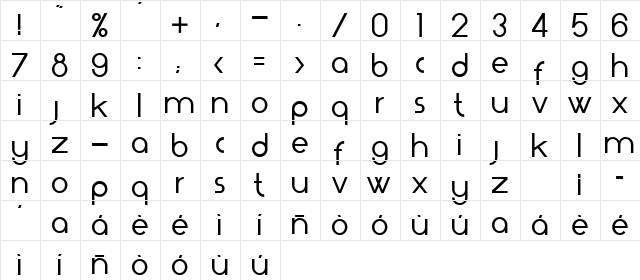
ZARAUTZ Normal
Design Context for ZARAUTZ Typeface
ZARAUTZ takes a measured approach to typography — its balanced proportions and neutral character make it a reliable workhorse for both digital and print work.